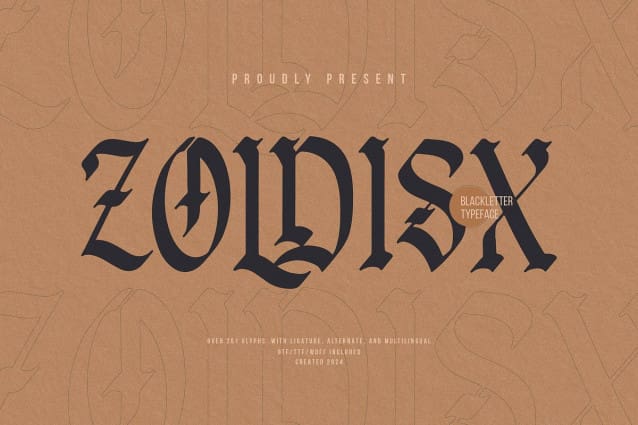
Zoldisx Blackletter Font
Zoldisx Blackletter Font, from Denustudios, suitable for any projects such as: logos, branding projects, homeware designs, product packaging, mugs, quotes, posters, shopping bags, t-shirts, book covers, name card, invitation cards, greeting cards, label, photography, watermark, special events, and all your other lovely projects that need a Blackletter Typeface taste.